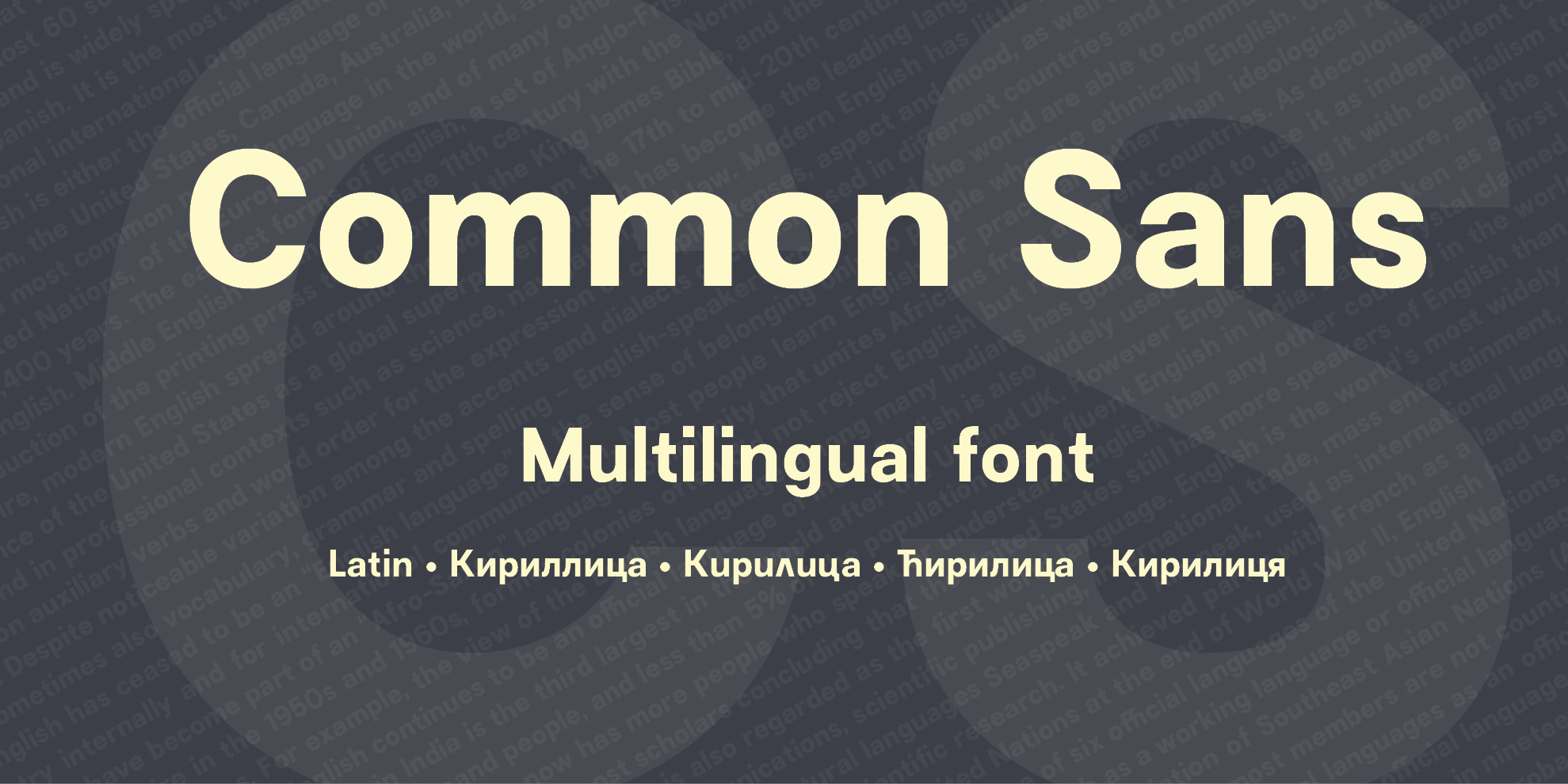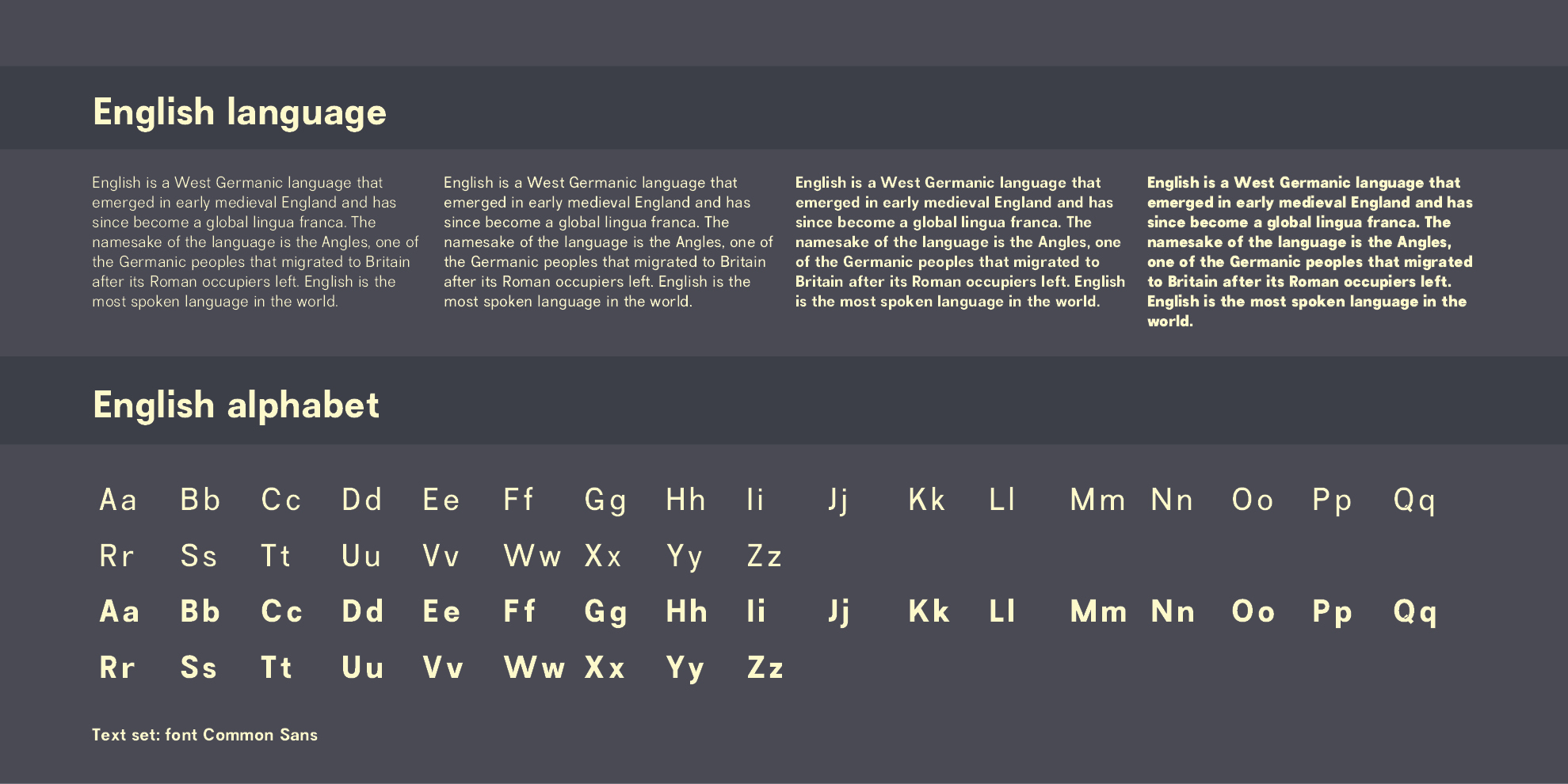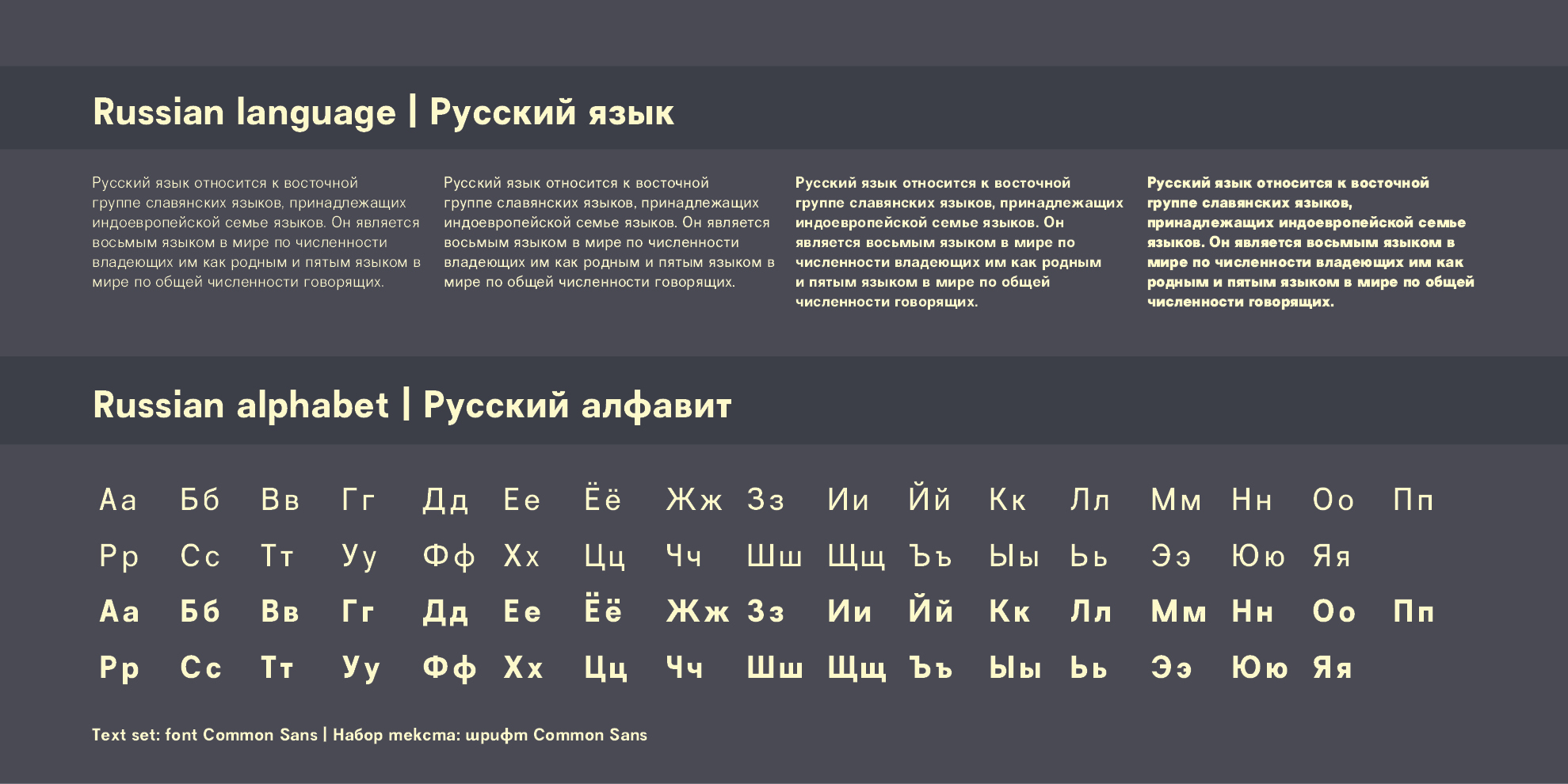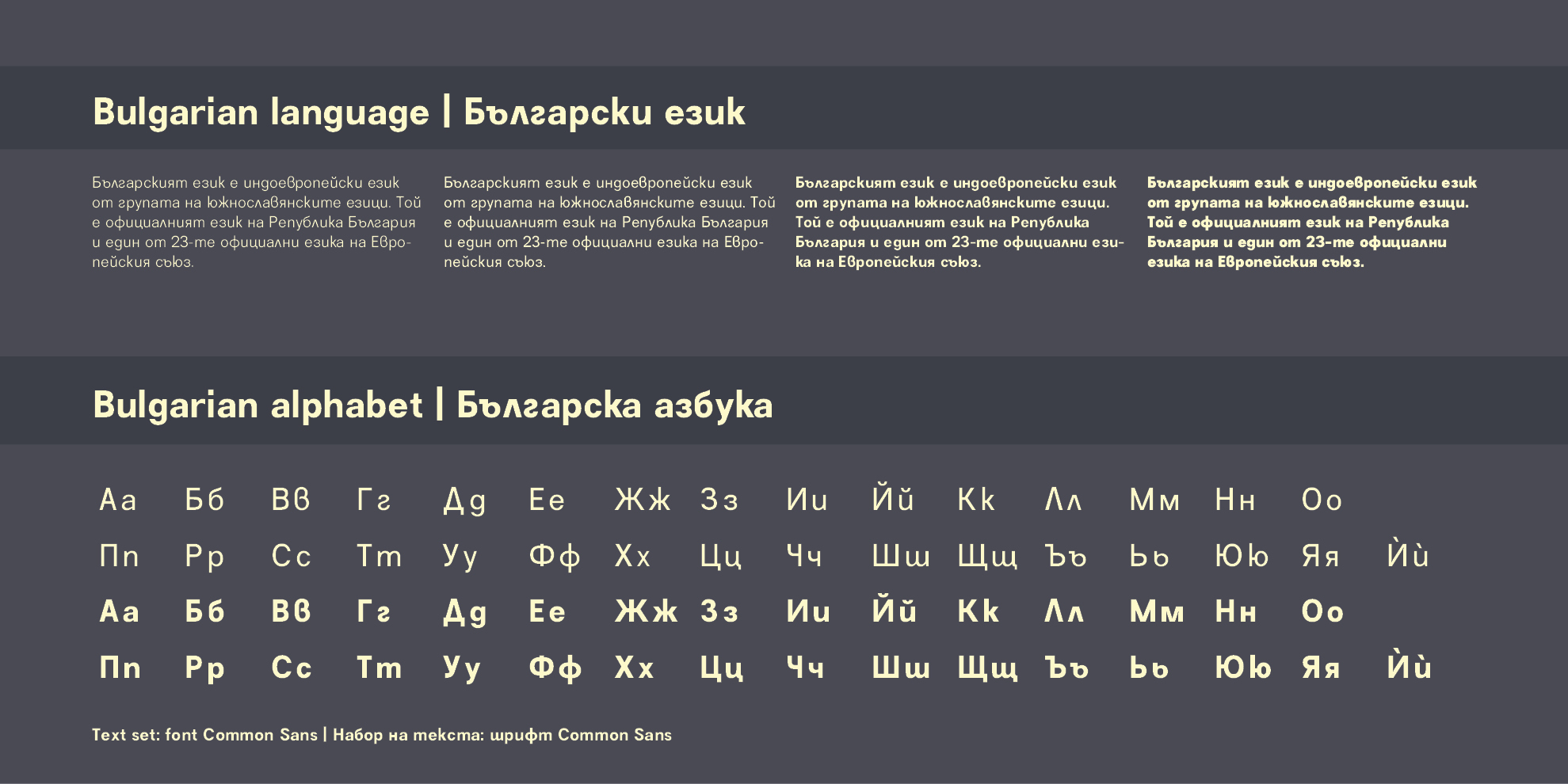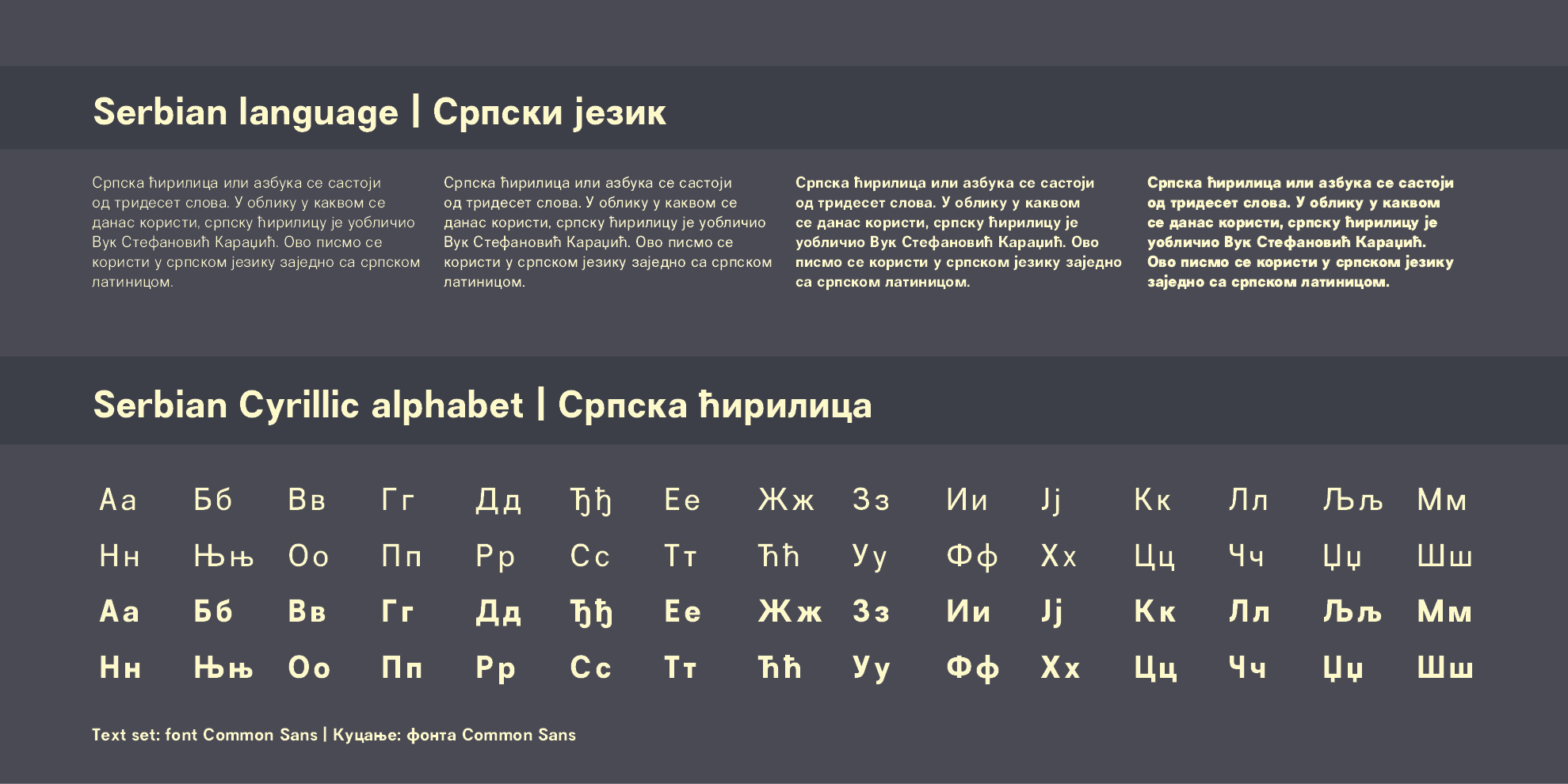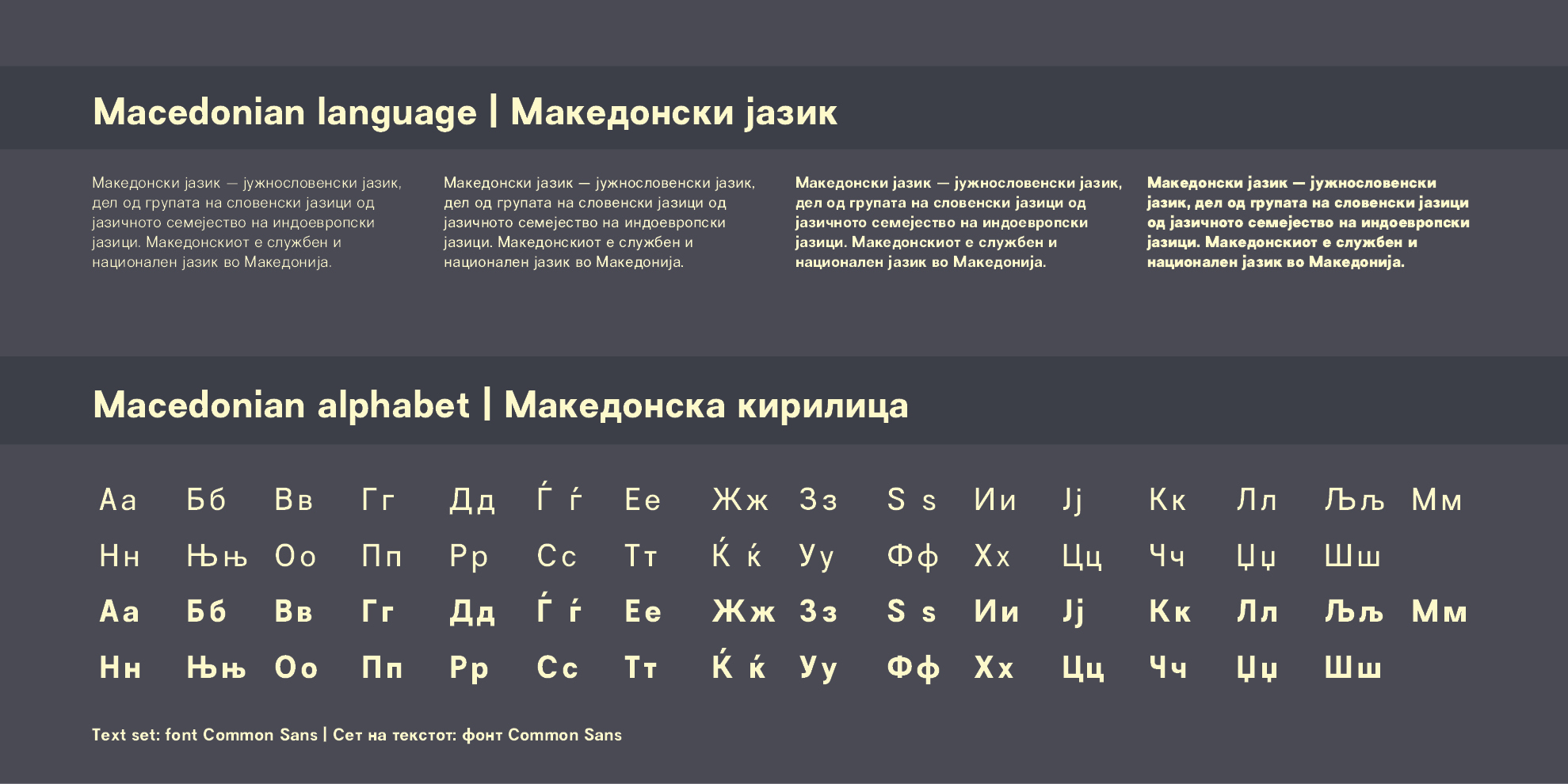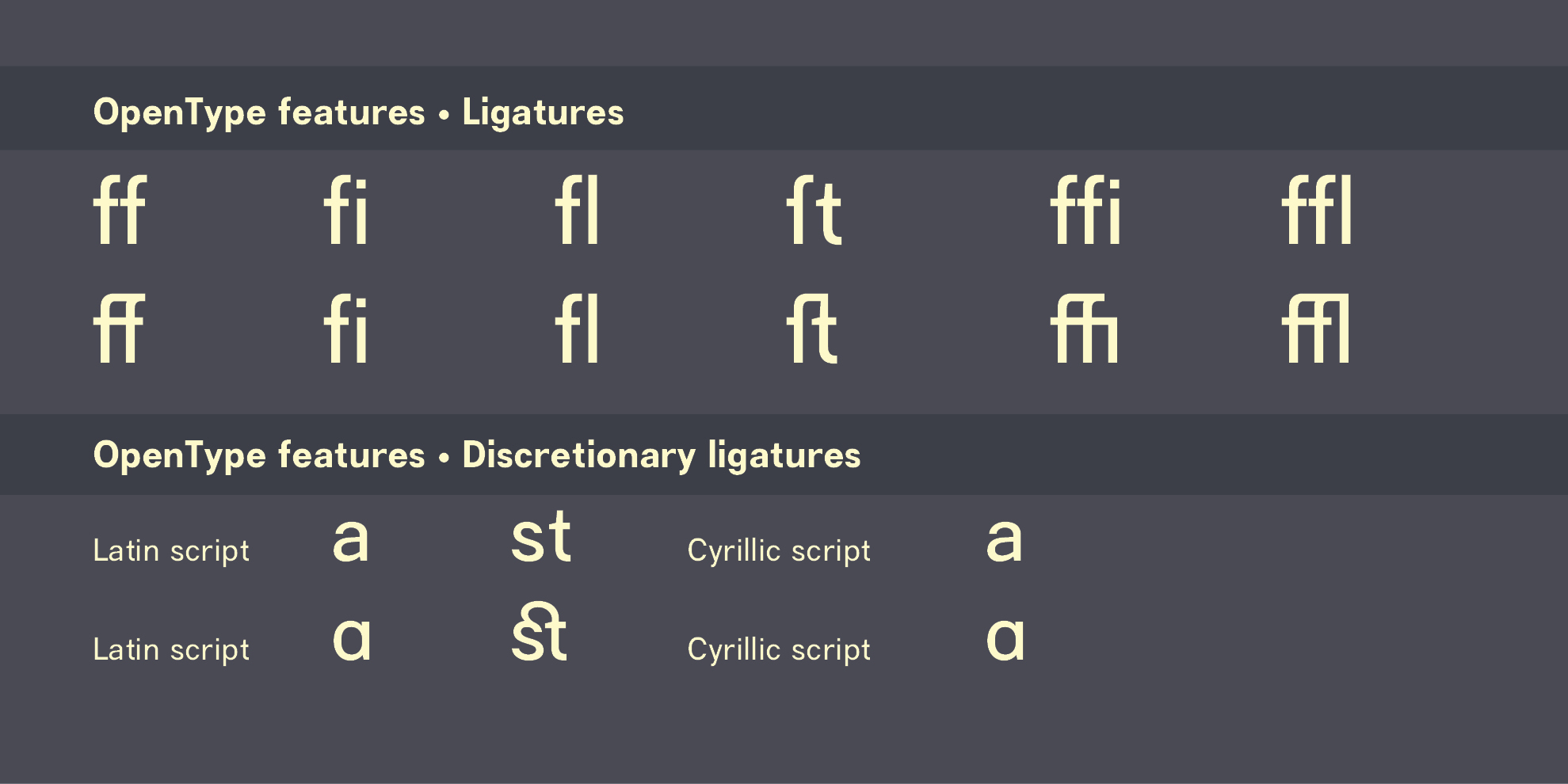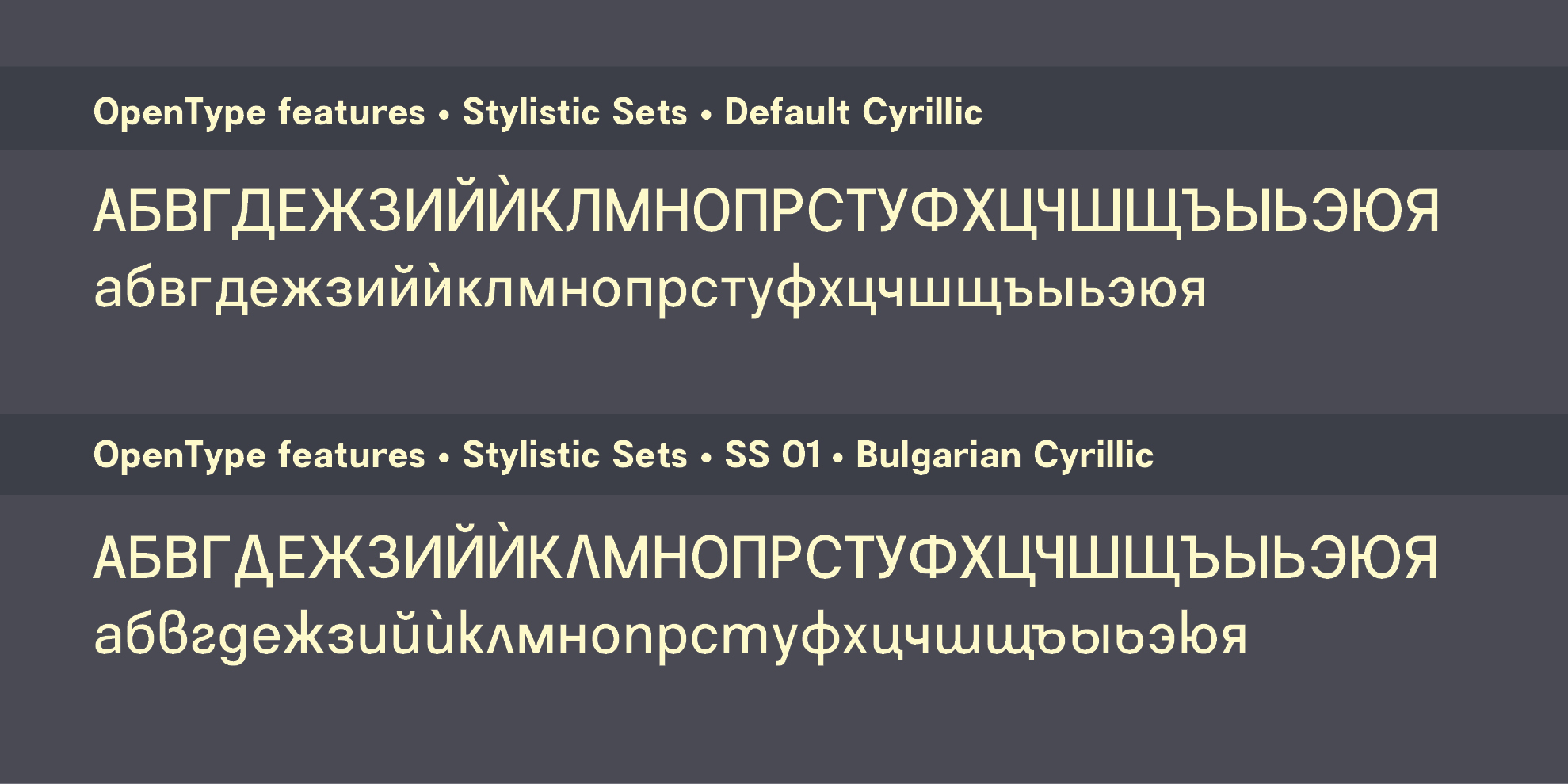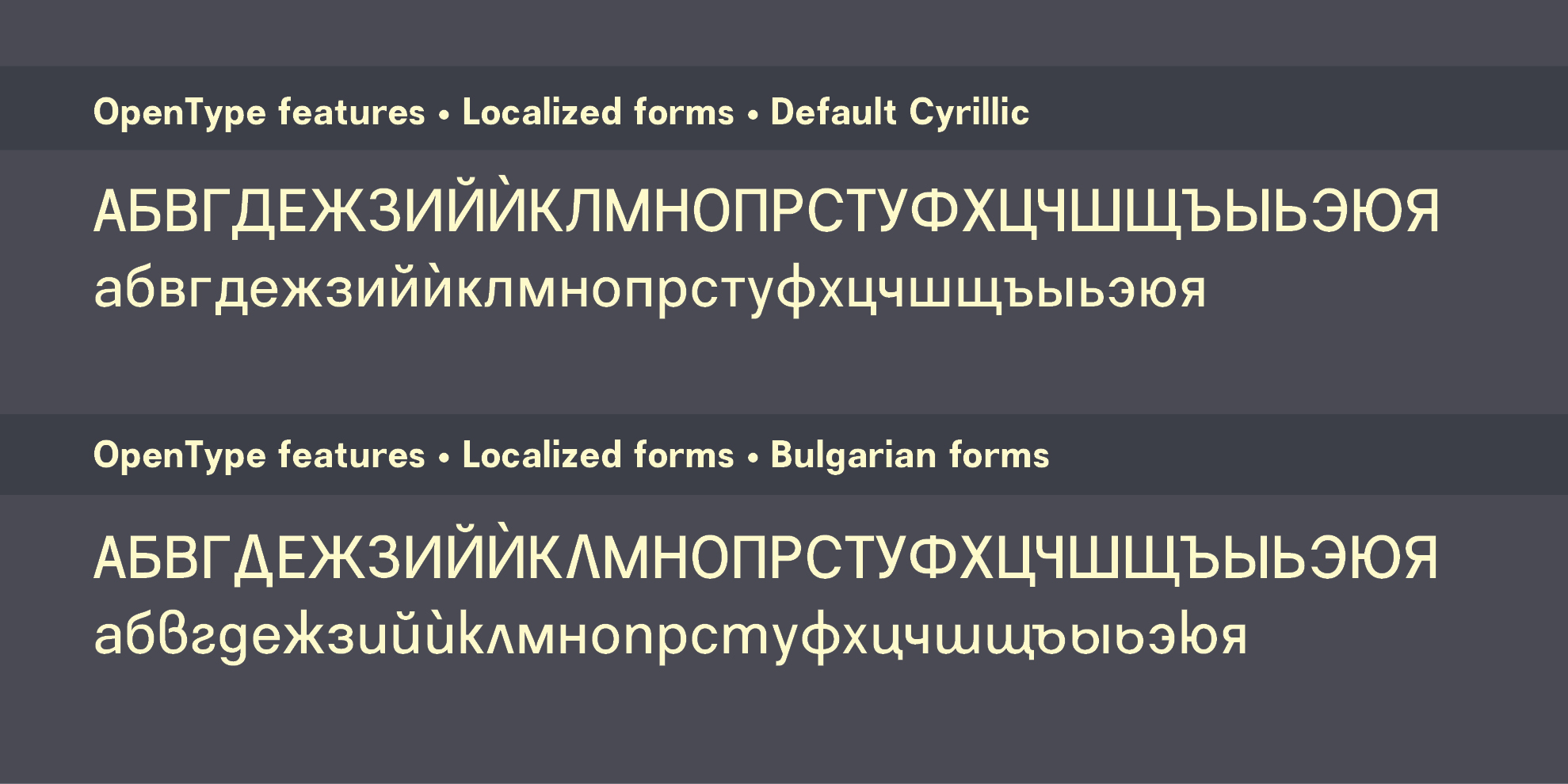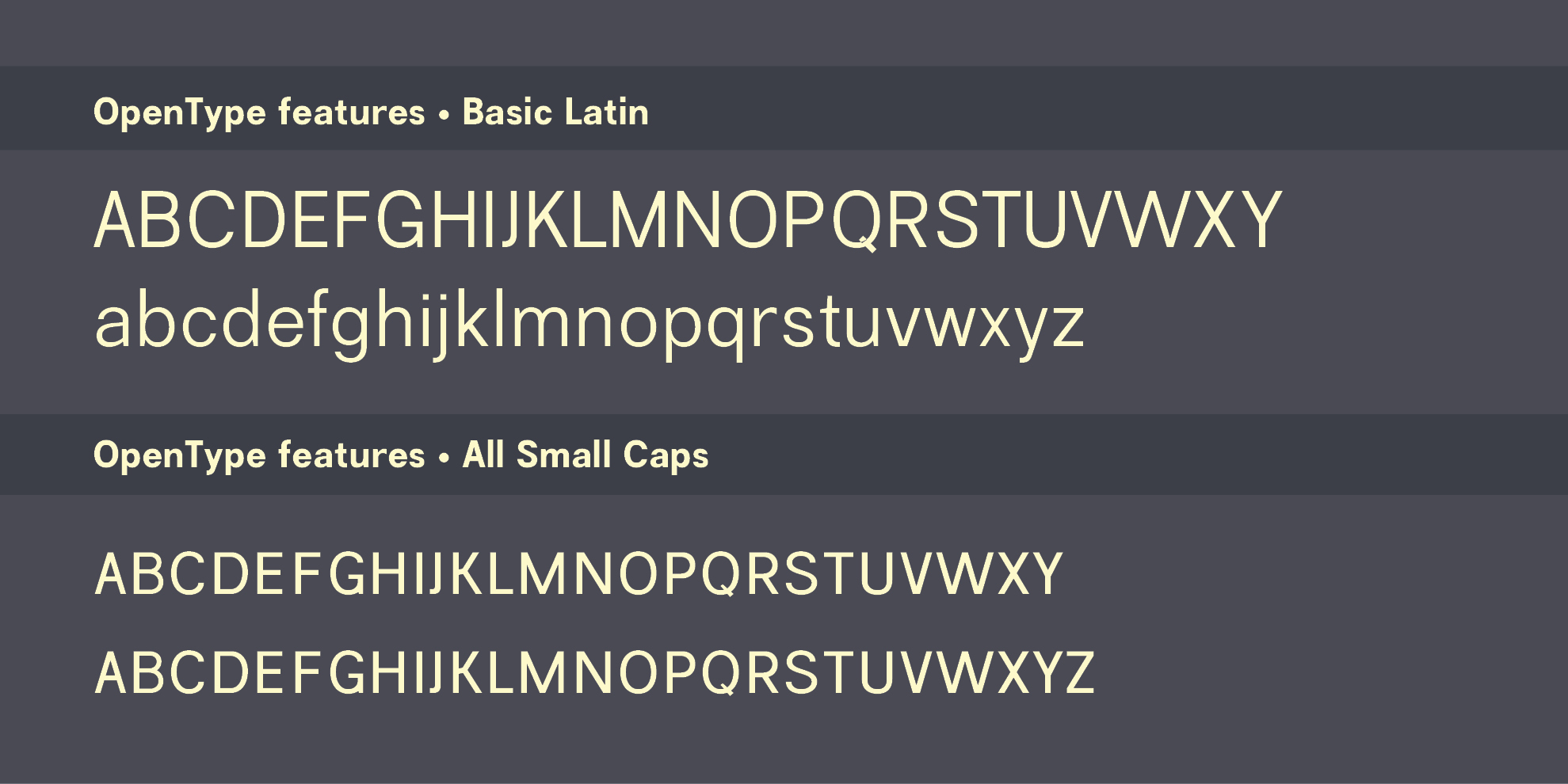
Common Sans
Common Sans is a neo-grotesque sans serif font family influenced by Swiss Style in typography.
Design: Stefan Peev
Stefan Peev is a philologist, graphic designer and publisher in Bulgaria. He is the creator of fonts with a free license, which incorporates the Bulgarian form of Cyrillic. He is active in the field of historical typography. He prepares for the publication of several Old Bulgarian fonts, as well as digital replicas of the civic font, approved by the reform of Peter I in Russia in 1708-1710, as well as the handwriting of Vasil Levski and other historical figures.